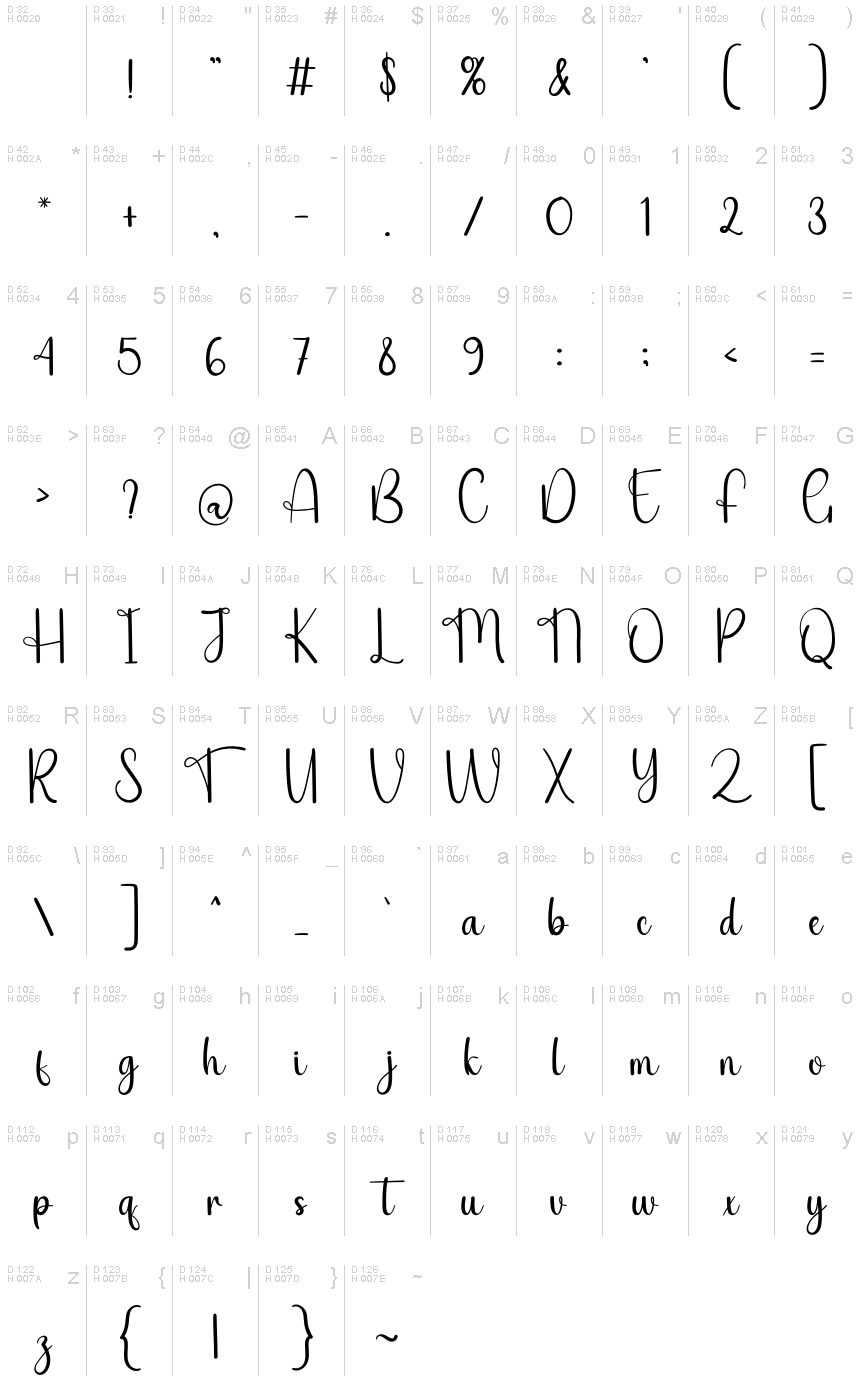
Together
Together, designed by Scratchones, brings the authenticity of handcrafted artistry to your fingertips. This semi-light handwritten font marries elegance with a personal touch, creating a friendly and approachable aesthetic that resonates with warmth and character. Together's flowing lines and organic form lend themselves to designs that require a touch of individuality without sacrificing sophistication.
The fluidity of its characters makes Together an excellent choice for invitations, branding materials, and personal blogs where the human element is celebrated. Its semi-light weight ensures legibility while maintaining an airy, uncluttered presence on the page. Embrace the charm of Together for projects that demand both visual appeal and emotional connection.